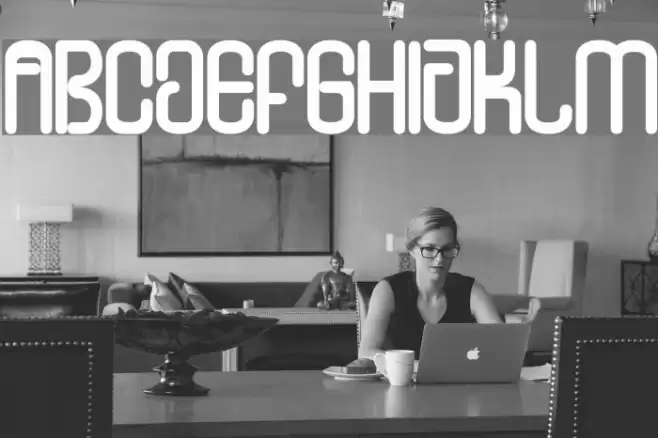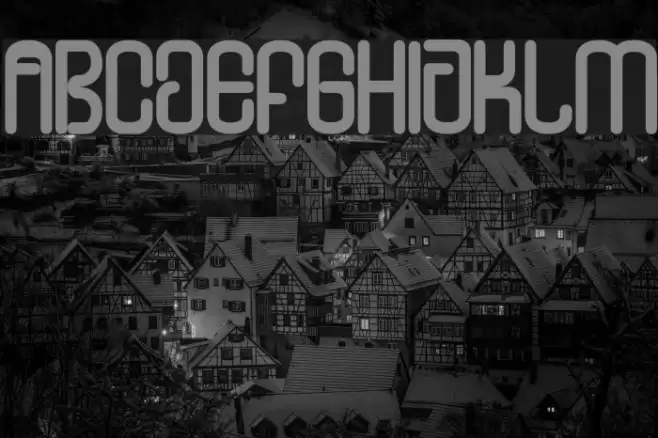
FD Tounge Font
FD Tounge Description
This font features a modern and geometric design with rounded edges, creating a smooth and cohesive appearance. The characters are uniform in height and width, contributing to a balanced and structured look. The uppercase and lowercase letters maintain a consistent style, with a focus on simplicity and readability. The numerals and special characters follow the same design principles, ensuring a harmonious overall aesthetic. The font's clean lines and rounded forms make it suitable for contemporary design projects.
A modern, geometric font with rounded edges and a cohesive appearance from Uncategorized fonts.
- Proposed Projects: Ideal for branding, digital media, and advertising projects that require a modern and clean aesthetic.
- Use Case: Headlines, Logos, Digital Media